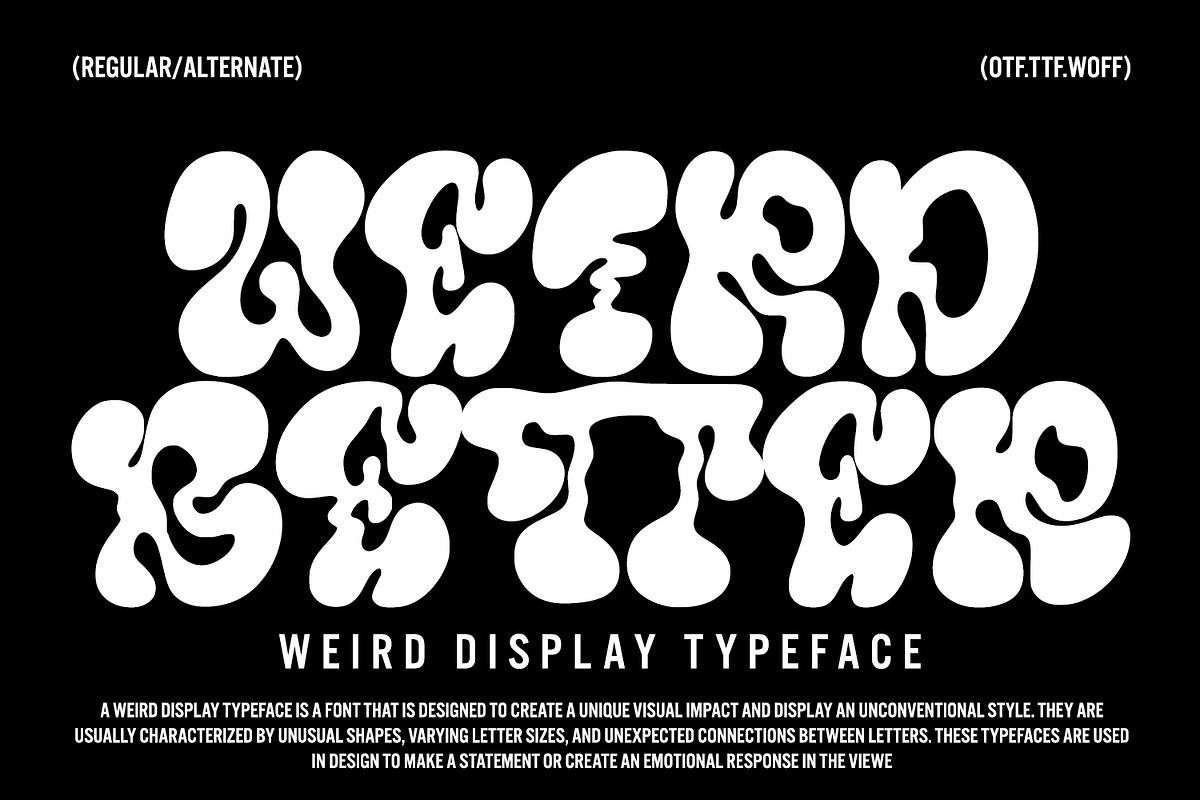
Weird Better - Display Typeface Free Download
Please note, to use this font for commercial purposes, you must purchase the full version. Weird Better is a bold and unique display typeface designed to make a statement. With its quirky letterforms and distinctive style, this font is perfect for creating eye-catching logos, posters, headlines, and creative projects that need a fun, out-of-the-box feel. Whether you're designing for a playful brand, a modern campaign, or an unconventional event, Weird Better adds personality and flair to your designs. Test it out and enjoy free download access for personal use. Experience the creative energy of Weird Better - Display Typeface Free Download before purchasing the commercial license. Add a bold, unique touch to your designs with Weird Better.